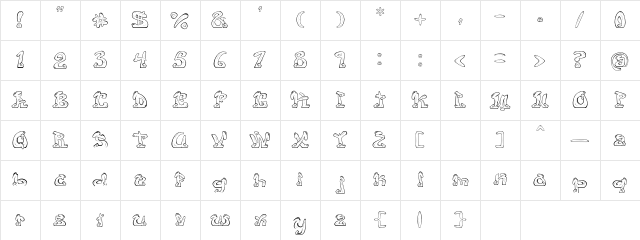
Eazy 3 Regular
Foundry: Mohamed hashim
Designer: Mohamed Hashim
Design Context for Eazy 3
Eazy 3 is a composed and adaptable typeface that performs quietly and consistently across a wide range of design contexts.